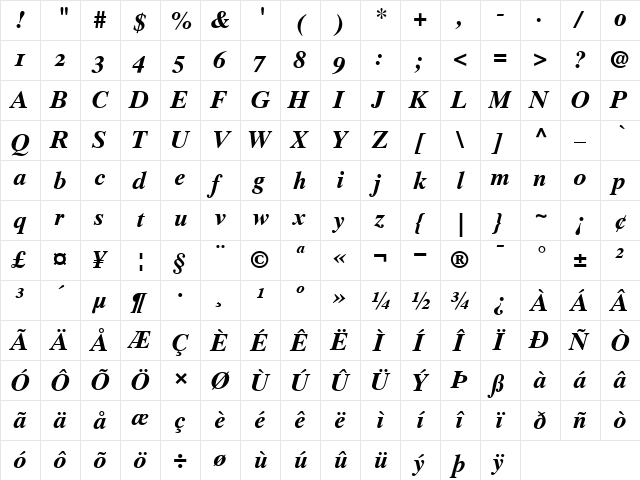
TimesTenOldstyleFigures BoldItalic Font Preview
Design Context for TimesTenOldstyleFigures Typeface
TimesTenOldstyleFigures carries the refined structure of traditional serif typography, with bracketed terminals and considered proportions that communicate credibility and craft. The dynamic lean of this cut emphasises speed and emphasis in any layout. Its bold stroke weight gives it real presence on the page.
Pro Tip: Set TimesTenOldstyleFigures with slightly loose tracking in headlines to let each letterform's detail read clearly at display sizes.